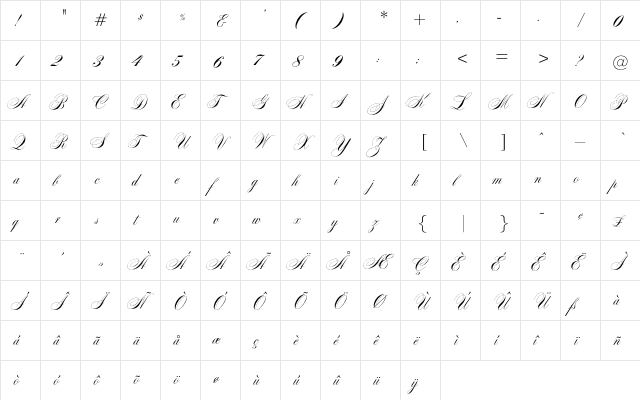
Caravelle Regular
Design Context for Caravelle Typeface
Caravelle is a composed and adaptable typeface that performs quietly and consistently across a wide range of design contexts.